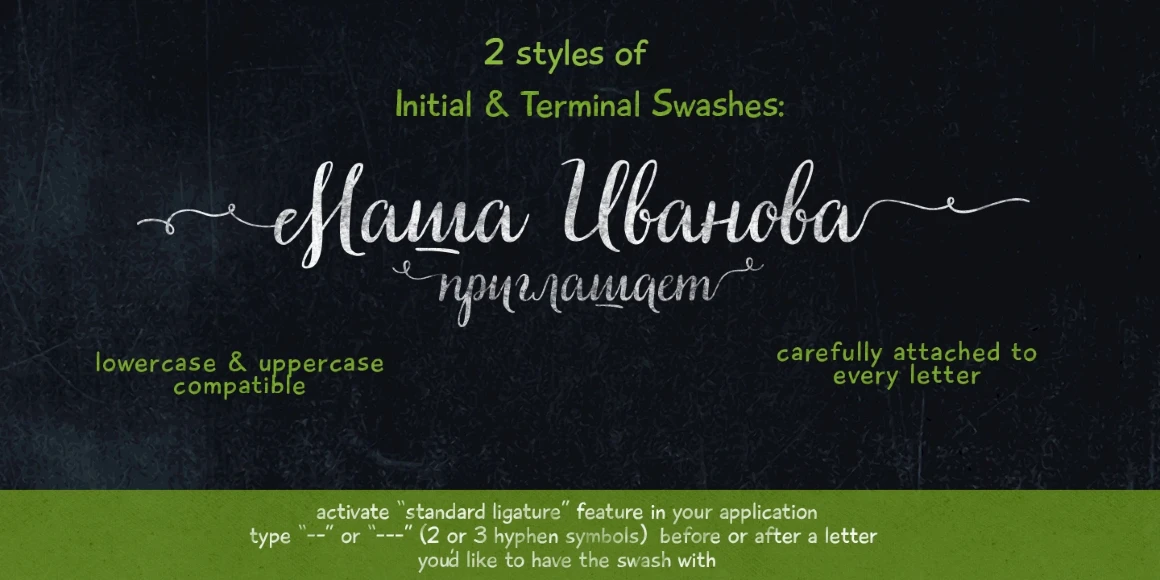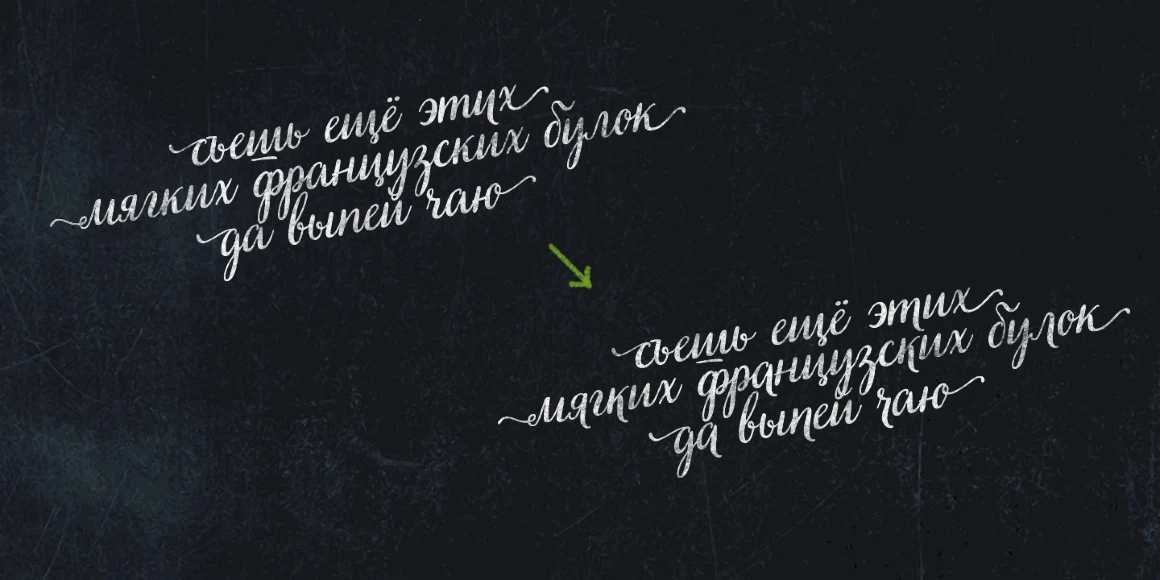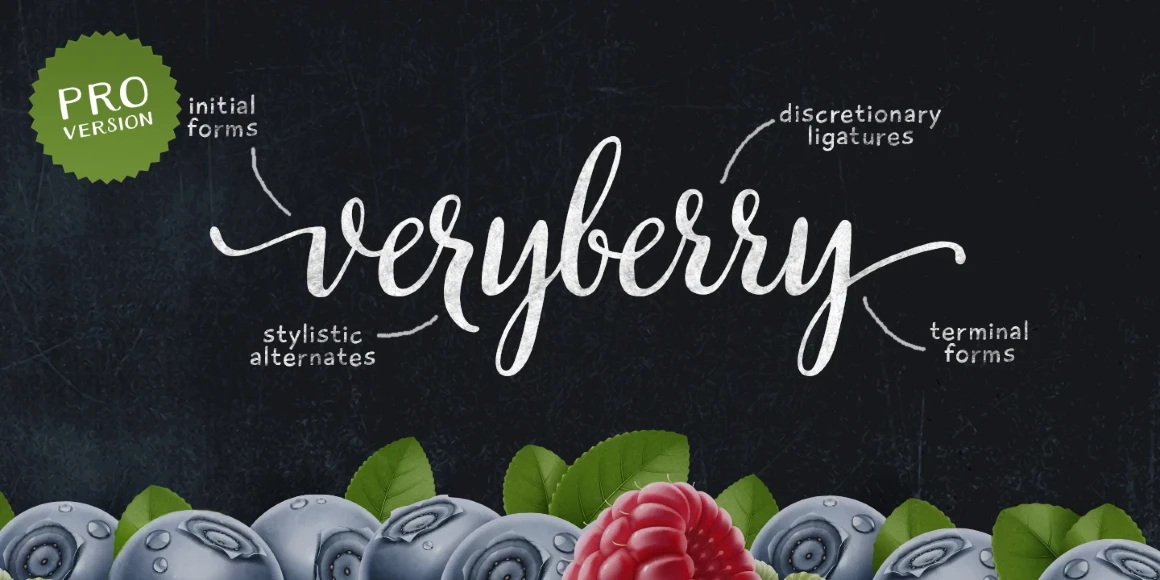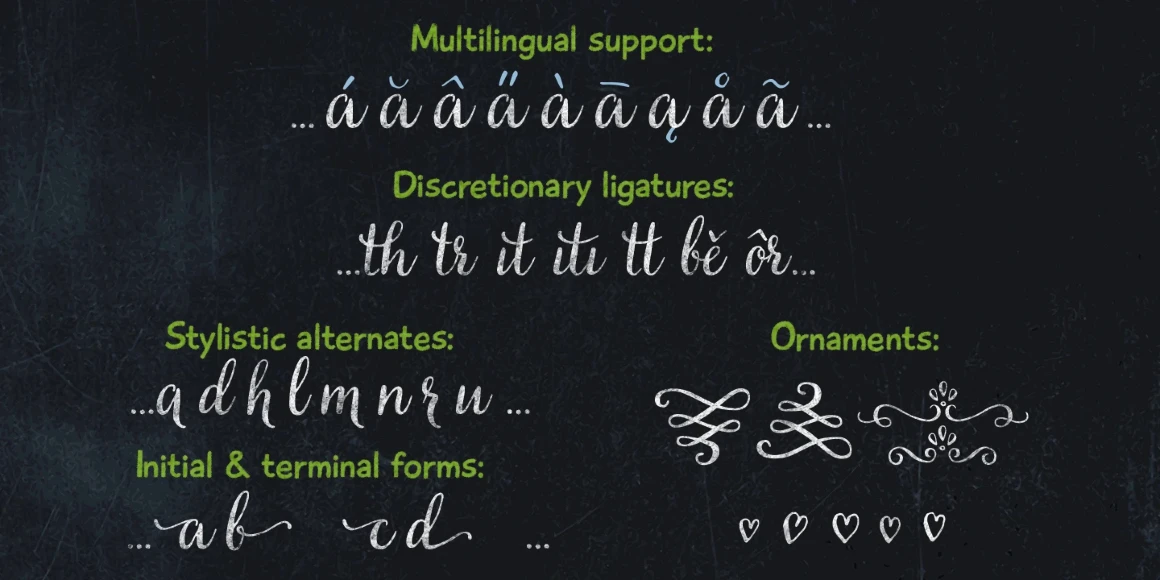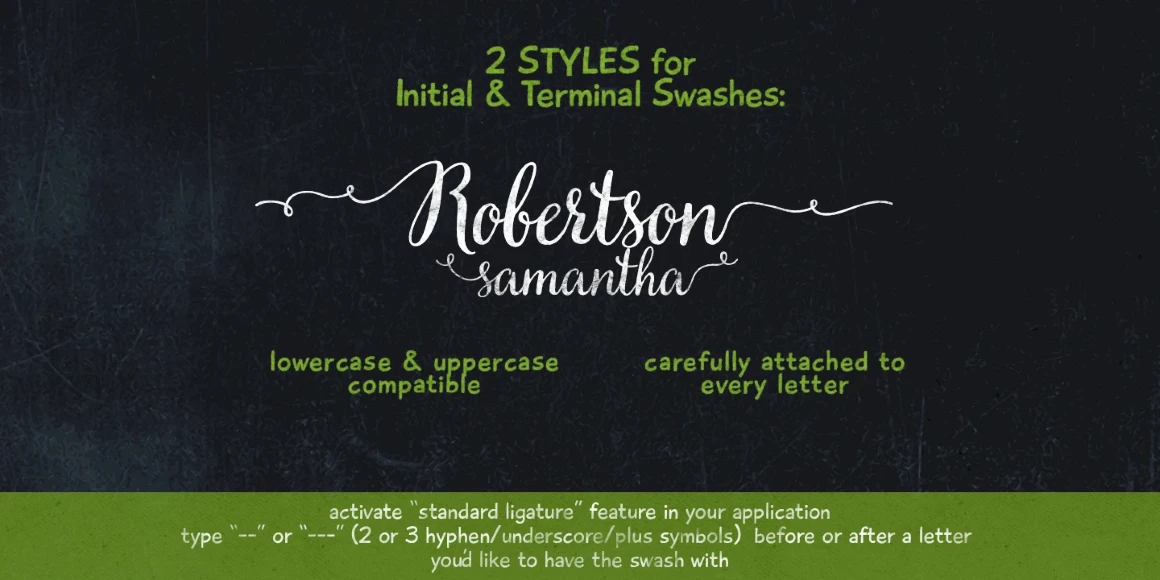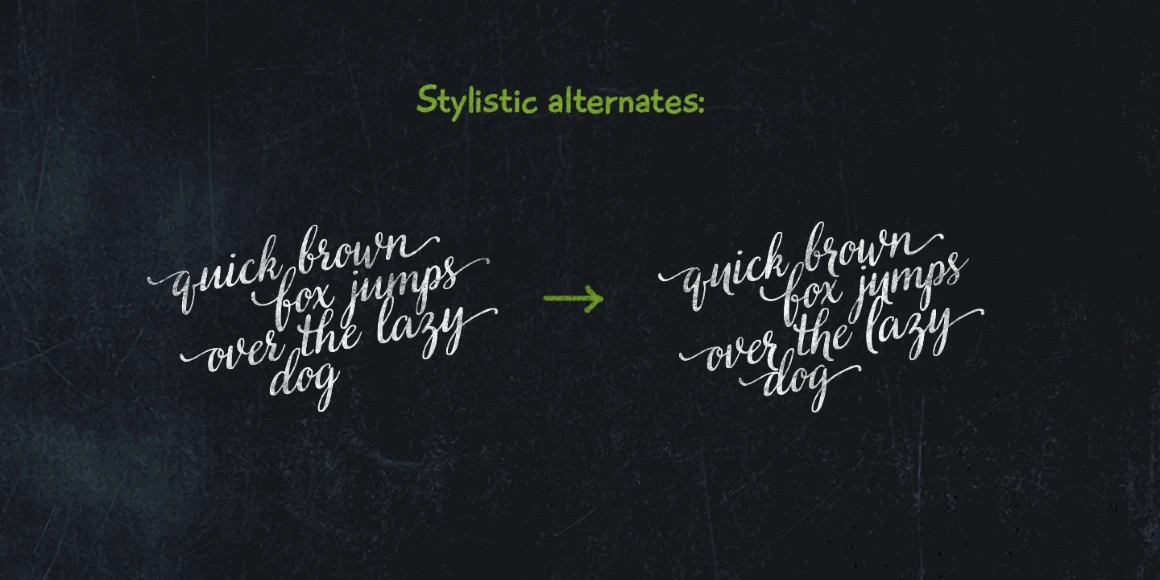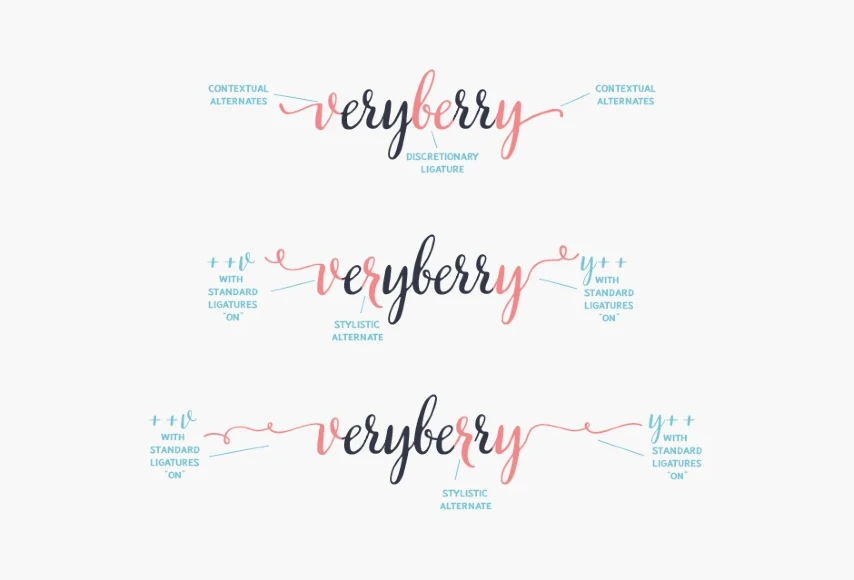
Veryberry
By Elena Genova
Veryberry Regular
Veryberry is a handwritten font with a unique character inspired by latest trends in modern calligraphy and handlettering.Full of open type features, is best used in an OpenType-aware software. Font supports most of European languages including cyrillic ones.